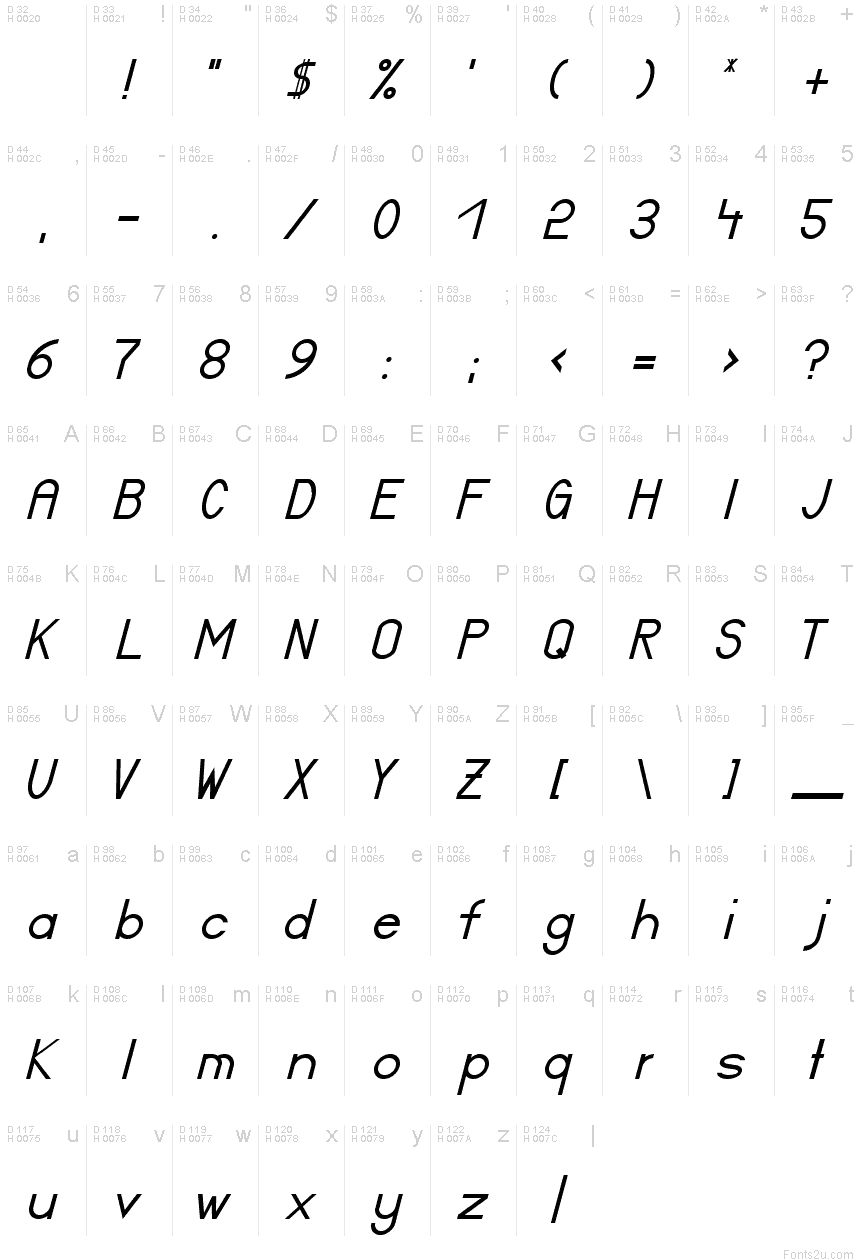
Certified Italic
Certified Italic font by Dieter Schumacher is a free sans serif typeface that feels like a handshake between script and modern sans. Its letters lean forward with an easy, handwritten tilt, but the strokes stay clean, even, and sharply cut, giving every word a sense of motion without losing clarity. The curves feel smooth and inky, while the straight lines keep things grounded, so your text looks confident rather than fussy.
Using Certified Italic, you get a rare italic style that carries whole headlines and short paragraphs on its own, making it a natural fit for logos, product packaging, editorial pull quotes, magazine covers, posters, and social media graphics. This free font shines when you need emphasis with personality instead of just “bold.” Pair Certified Italic with a simple upright sans for body text, and let this lively italic handle all the expressive moments in your layout.